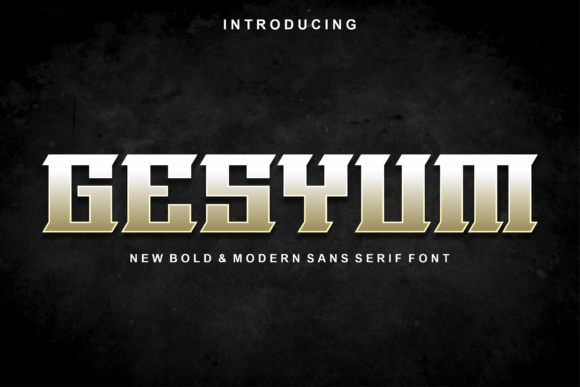
Gesyum: Elevating Your Brand with a Modern Display Font
In the world of design and branding, typography plays a pivotal role in shaping perception. A well-chosen font can convey professionalism, creativity, or boldnessâdepending on your goals. Gesyum is one such display font that stands out for its clean aesthetics, modern appeal, and strategic versatility. Designed to cut through visual clutter while maintaining elegance, Gesyum offers a powerful tool for anyone looking to elevate their brandâs visual communication.
What Makes Gesyum a Strategic Choice?
Gesyum is not just another decorative fontâitâs a carefully crafted typeface that balances form and function. With open apertures, generous spacing, and a slightly geometric flair, it reads clearly even at smaller sizes while still delivering a strong impression when scaled up. This duality makes it ideal for use across various platforms and purposes without compromising legibility or impact.
For entrepreneurs and marketers, the ability to maintain clarity and style in all messagingâfrom website headlines to social media postsâis crucial. Gesyum allows you to do just that by offering a consistent visual tone that supports your brand identity. Whether youâre launching a new product or redesigning your marketing materials, this font helps ensure your message isnât lost in translation.
Why Choose a Display Font Like Gesyum?
Display fonts are typically used for short bursts of text where visual impact matters more than readability. However, Gesyum defies the norm by being both striking and readable. It works best for headlines, logos, taglines, and other prominent text elements that need to catch attention quickly. Its unique character shapes and subtle stylization make it stand apart from generic sans-serif options, giving your content a more distinctive and memorable feel.
When selecting a font, itâs important to consider how it aligns with your brandâs personality. If your brand communicates innovation, trust, and simplicity, Gesyum could be an excellent fit. It avoids excessive ornamentation but still carries enough character to reflect thoughtfulness in your design choices.
Using Gesyum to Support Brand Goals and Communication
Font selection is rarely random. Every choice should serve a purpose, especially in professional settings. For creators and publishers, Gesyum can enhance the presentation of digital products, such as e-books, online courses, or infographics. Its modern edge adds a layer of sophistication that can help position your work as high-quality and forward-thinking.
Consider how you might apply Gesyum in different contexts:
- Headlines and Titles: Use Gesyum to create impactful titles for blog posts, presentations, or landing pages. It draws the eye and encourages readers to engage with the content below.
- Logos and Branding Elements: Incorporate it into your logo or branded assets like business cards and packaging. The fontâs balance between boldness and clarity ensures it remains effective across mediums.
- Social Media Graphics: In a space dominated by fleeting attention spans, Gesyum can help your messages stand out. Pair it with minimalist layouts and strategic color contrasts to maximize engagement.
- Event Posters and Invitations: When announcing events or campaigns, Gesyum can add a polished yet contemporary look that reinforces your brandâs authority and relevance.
Aligning Typographic Choices with Strategic Planning
Before implementing Gesyum into your projects, ask yourself what you want your audience to feel when they see your brand. Does it need to appear cutting-edge? Approachable? Authoritative? Each of these impressions requires a different typographic strategy.
If your brand is evolving toward a more modern identity, Gesyum can act as a visual anchor. It provides a fresh, clean appearance that signals growth and adaptability. But if your brand has a long-standing traditional image, a sudden shift to a display font may disrupt recognition. Always evaluate whether the font supports your current positioning or if it aligns with future aspirations.
Practical Applications and Real-World Use Cases
Letâs explore some real-world examples of how Gesyum can be used effectively:
- Freelance Portfolio Websites: Freelancers in creative fields often rely on visual storytelling. Using Gesyum for headings and project names can give their portfolios a cohesive, professional look that reflects their expertise.
- Marketing Campaigns: Marketers frequently leverage typography to evoke emotion. Gesyumâs balanced structure and soft curves make it suitable for campaigns targeting young professionals or tech-savvy audiences.
- Product Packaging Design: Small business owners can benefit from using Gesyum in product labels or tags to create a sense of quality and originality. The font complements minimalistic designs and works well with both bold and muted color schemes.
As you plan your next project, ask whether Gesyum aligns with your goals. Could it help you stand out in a crowded marketplace? Would it support a more professional or creative tone? And most importantly, will it serve your audience effectively?
With the right approach, Gesyum can become a staple in your design toolkit, contributing to long-term results and a stronger, more cohesive brand identity.